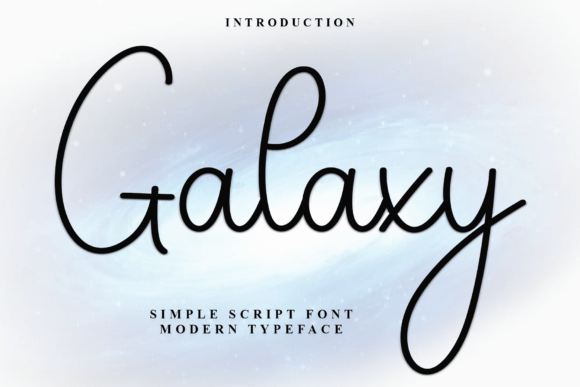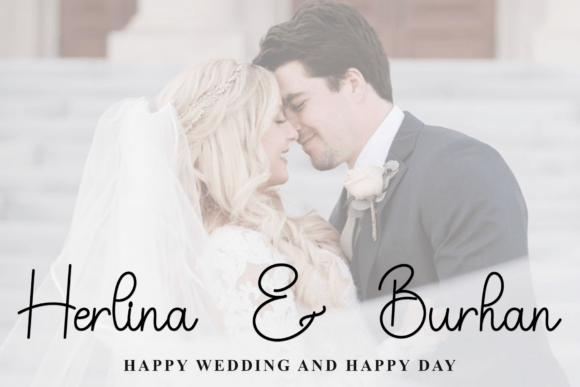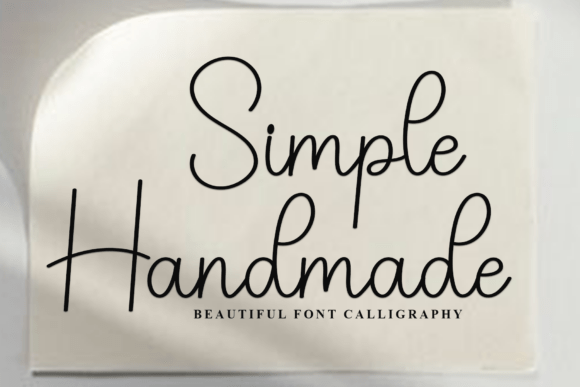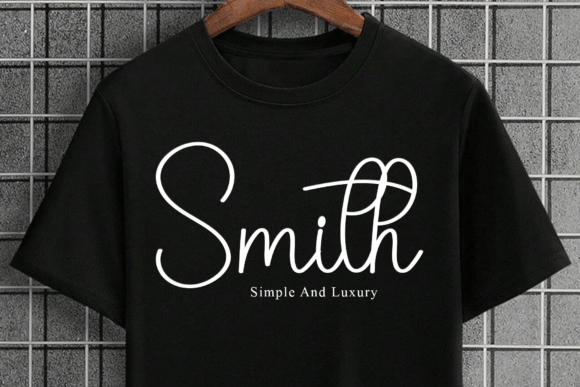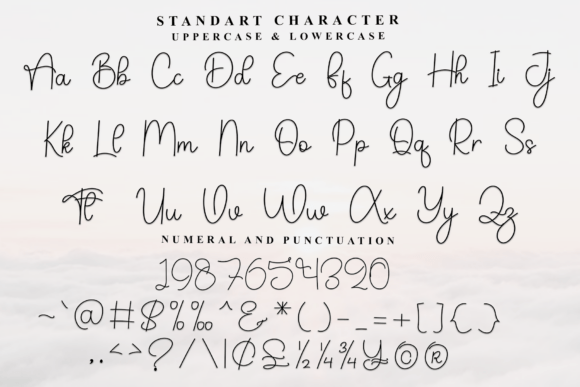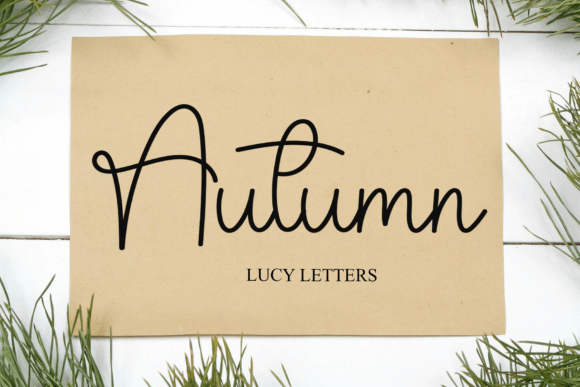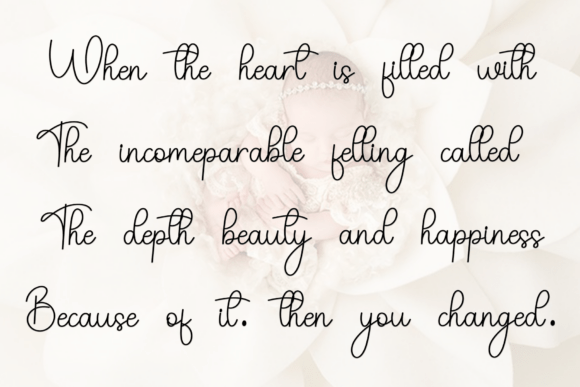
The Cosmic Inspiration Behind Galaxy Font
Have you ever stared up at the night sky, mesmerized by the twinkling stars and the vast expanse of the universe? It’s moments like these that spark creativity and inspire new ideas. For designers, this spark can be the starting point for something truly special – like the Galaxy Font.
Galaxy Font is a beautiful and eye-catching typeface designed to add a touch of magic to your designs. Its unique strokes and character make it perfect for a wide range of creative projects, from crafts to graphic design. Whether you’re working on a new logo, brochure, or poster, Galaxy Font is sure to add a touch of sophistication and elegance.
With its versatility and compatibility with various applications, Galaxy Font is a valuable addition to any designer’s toolkit. It’s the perfect way to add a little bit of magic to your designs and make them truly unforgettable.
Galaxy Font Key Features
- Unique Character Set: Galaxy Font features a unique set of 500+ glyphs, including a wide range of punctuation marks, symbols, and special characters, making it suitable for various design applications.
- Multi-Lingual Support: Galaxy Font supports over 100 languages, including Latin, Cyrillic, Greek, and many Asian languages, making it a versatile choice for global design projects.
- Style Variations: Galaxy Font comes in 5 different styles: Regular, Bold, Italic, Bold Italic, and Outline, providing designers with a range of options to suit their design needs.
- Customization Options: Galaxy Font can be customized using font editing software, allowing designers to create custom variations and adapt the font to their specific design requirements.
Galaxy Font Review
I recently had the chance to work with Galaxy Font, and I must say it’s a mixed bag. On the one hand, there are some things that really shine (✨).
- ✨ Unique aesthetic: Galaxy Font has a distinct, otherworldly feel to it that’s perfect for sci-fi or futuristic projects.
- ✨ Good legibility: While not perfect, the font is generally easy to read, even at smaller sizes.
- ✨ Extensive language support: Galaxy Font includes support for a wide range of languages, making it a good choice for international projects.
However, there are also some limitations (⚠️) that need to be considered.
- ⚠️ Limited font weights: Galaxy Font only includes a few font weights, which may limit its usability in certain situations.
- ⚠️ Not ideal for body text: While the font looks great for headlines, it may not be the best choice for large blocks of body text.
- ⚠️ Some kerning issues: I noticed some minor kerning problems, particularly with certain letter combinations.
Overall, I’d say Galaxy Font is a solid choice for specific projects, but it may not be the best fit for everything. With some careful consideration and planning, it can be a great addition to your design toolkit.
Tips for Getting the Most Out of Galaxy Font
Use Galaxy Font for creative and futuristic designs.
Combine Galaxy Font with other bold fonts for a striking effect.
Experiment with different font sizes and colors to achieve the desired look.
Galaxy Font is ideal for:
Space-themed designs
Science fiction projects
Future-oriented branding
Modern and edgy graphics
Alternatives to Galaxy Font for Designers
Pacifico is a beautiful, elegant script font that is perfect for creating a luxurious and sophisticated look. It’s ideal for use in branding, packaging, and advertising materials where a touch of class is required. Pacifico is more elegant and refined compared to Galaxy Font, which has a more playful and cursive feel.